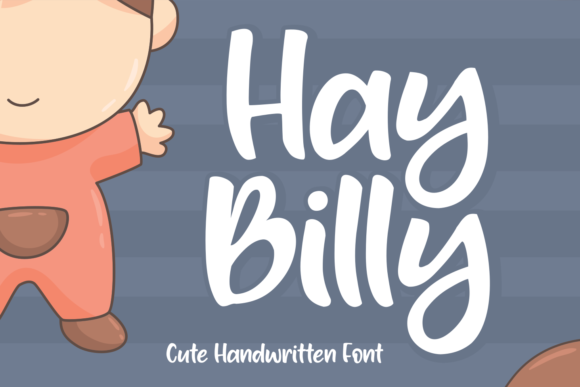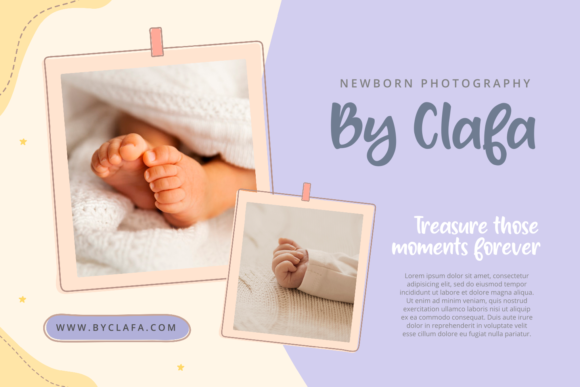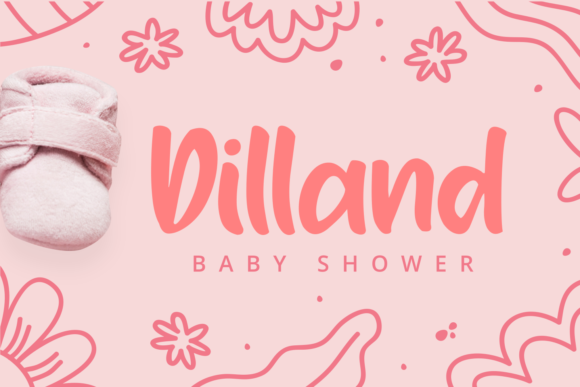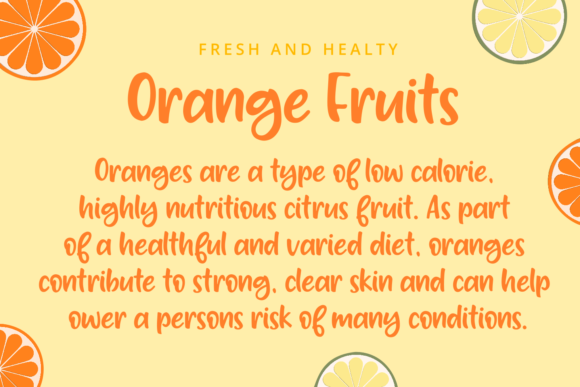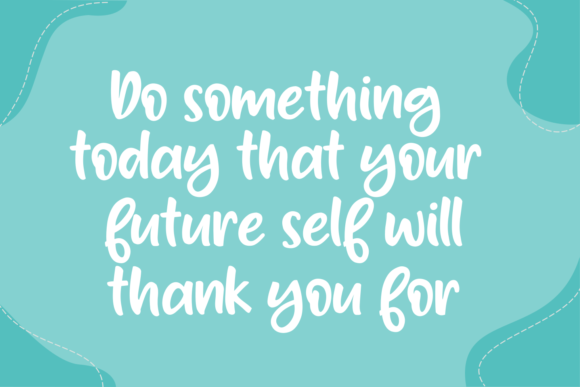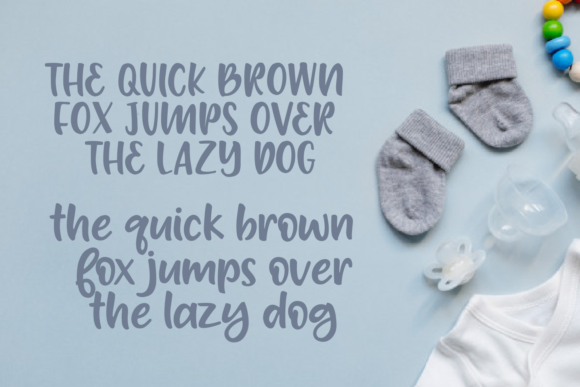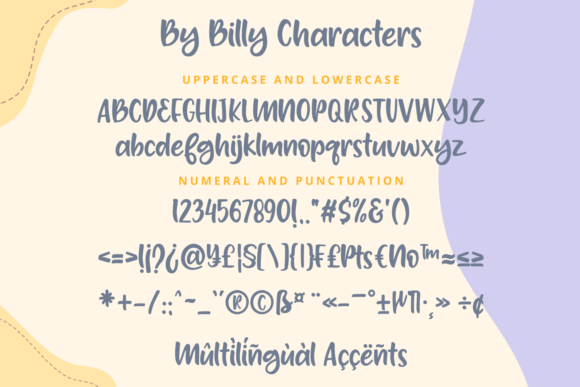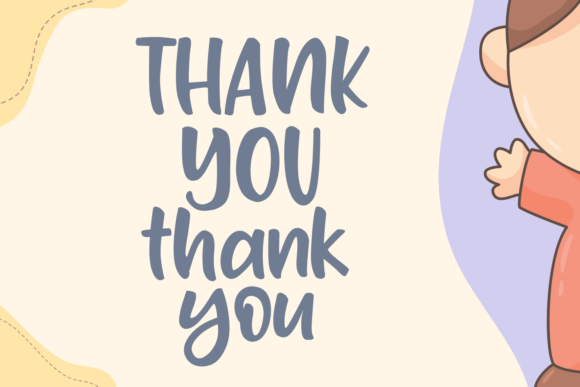
Hay Billy Font
Hay Billy is a friendly, cartoon like display font. It looks friendly and joyful and is the ideal choice for a wide range of child or school related designs.